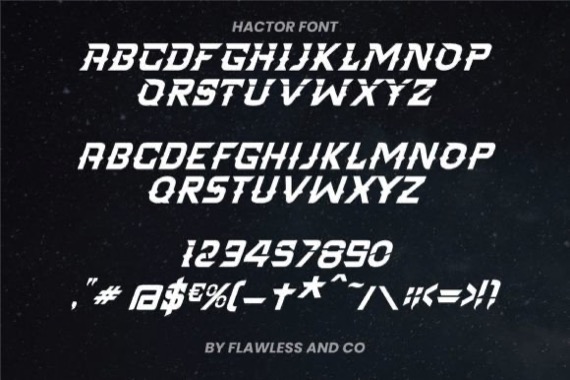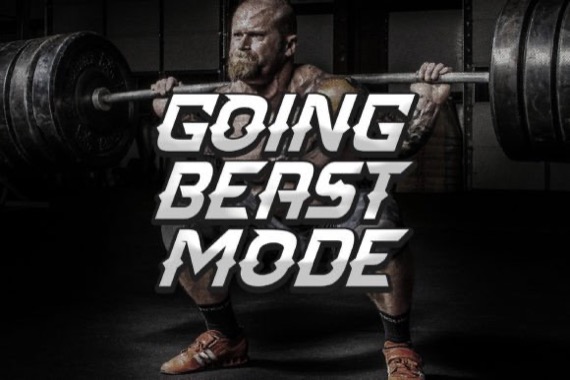
Introducing Hactor Font by Flawless And Co – a bold and impactful display sport typeface designed to make a statement. With its strong letterforms and athletic-inspired design, Hactor brings a sense of power and competitiveness to your sports-related projects. Hactor is specifically crafted to embody the spirit of sports, capturing the energy and intensity of athletic events.
Its bold and robust letterforms demand attention, making it perfect for sports team logos, jersey numbers, event signage, and any design that requires a strong typographic presence.
Hactor Display Font